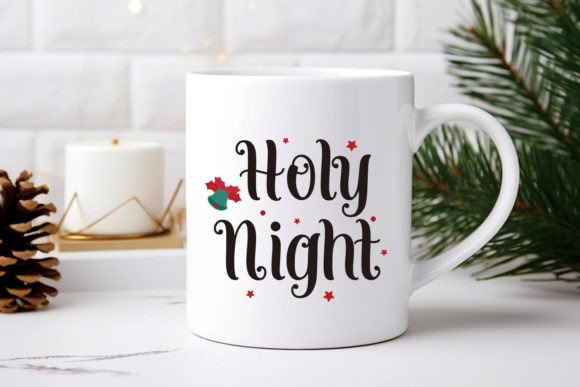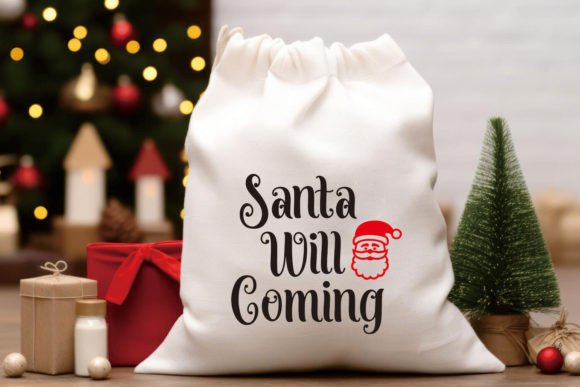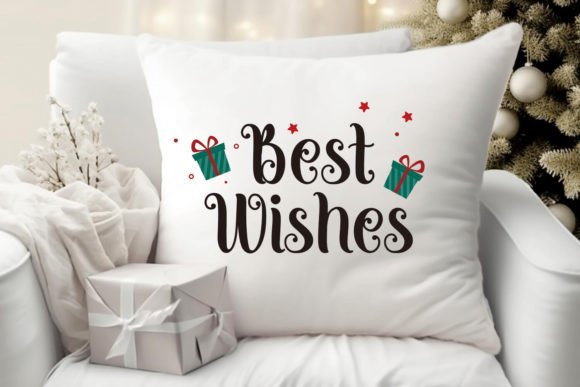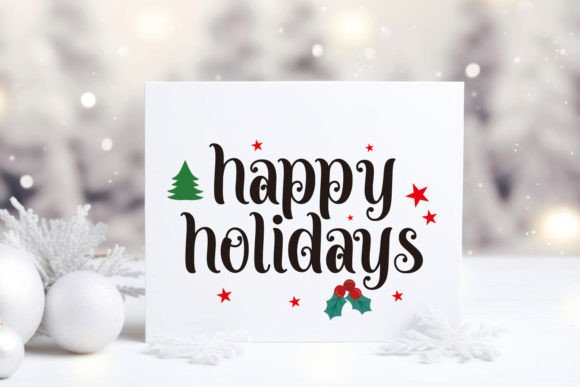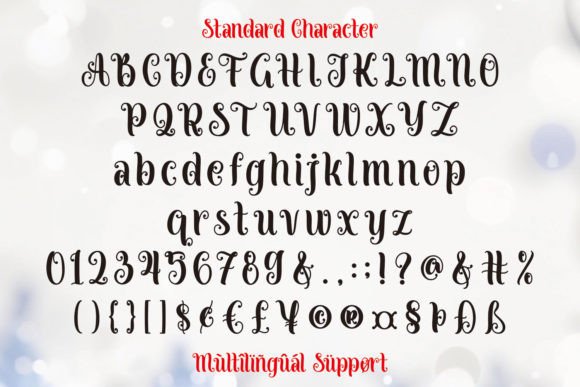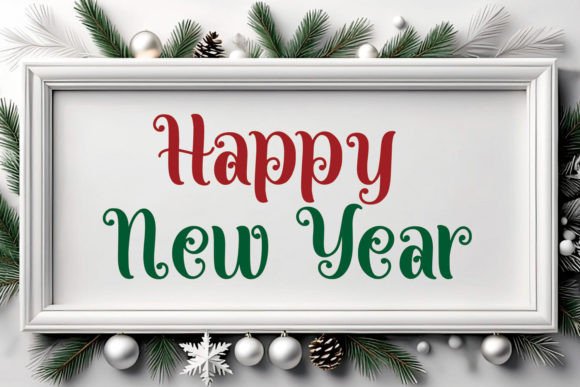
Christmas Wonderland Font: Add a Touch of Festive Charm to Your Holiday Projects
Are you looking for a font that can bring a dash of festive fun and whimsy to your holiday-themed projects? Look no further than the Christmas Wonderland font! This delightful font is specifically designed to capture the essence of Christmas, making it perfect for a wide range of occasions, from Christmas celebrations and winter holidays to Thanksgiving and festive crafting endeavors.
What Makes Christmas Wonderland Font So Special?
Christmas Wonderland font boasts a cute and whimsical style that is sure to add a touch of magic to your projects. Its unique design elements, such as intricate swirls and playful letterforms, evoke the feeling of a winter wonderland, making it an ideal choice for anyone looking to create festive and fun designs.
Whether you’re a designer, crafter, or DIY enthusiast, Christmas Wonderland font is the perfect addition to your font collection. Its versatility and charm make it suitable for a wide range of projects, including:
- Festive banners and signs
- Embroidery designs and patterns
- Personalized decorations and gifts
- Festive crafting projects, such as scrapbooking and paper crafting
Key Features of Christmas Wonderland Font
So, what makes Christmas Wonderland font so special? Here are some of its key features:
- Cute and whimsical design: Christmas Wonderland font features a unique and playful design that is sure to capture the essence of Christmas.
- Festive spirit: This font is designed to evoke the feeling of a winter wonderland, making it perfect for holiday-themed projects.
- Versatile: Christmas Wonderland font can be used for a wide range of projects, from festive banners to personalized decorations.
How to Use Christmas Wonderland Font in Your Projects
Using Christmas Wonderland font in your projects is easy! Here are some tips to get you started:
- Pair it with other festive fonts: Combine Christmas Wonderland font with other festive fonts to create a unique and eye-catching design.
- Experiment with colors: Try out different colors and textures to add depth and interest to your design.
- Add festive graphics: Incorporate festive graphics, such as holly leaves or snowflakes, to enhance your design.
- Use it for titles and headings: Christmas Wonderland font is perfect for titles and headings, adding a touch of festive flair to your project.
Whether you’re a designer or crafter, here are some tips for using Christmas Wonderland font in your projects:
- Use it for branding: Incorporate Christmas Wonderland font into your branding materials, such as logos and business cards, to add a touch of festive flair.
- Create custom embroidery designs: Use Christmas Wonderland font to create custom embroidery designs for festive clothing and accessories.
- Make personalized gifts: Add a personal touch to your gifts with Christmas Wonderland font, perfect for holiday gifts and decorations.
Christmas Wonderland font is a delightful addition to any designer’s or crafter’s font collection. Its cute and whimsical style captures the essence of Christmas, making it perfect for a wide range of holiday-themed projects. With its versatility, ease of use, and festive spirit, Christmas Wonderland font is sure to bring a touch of magic to your designs. So why not give it a try and add some festive fun to your projects?